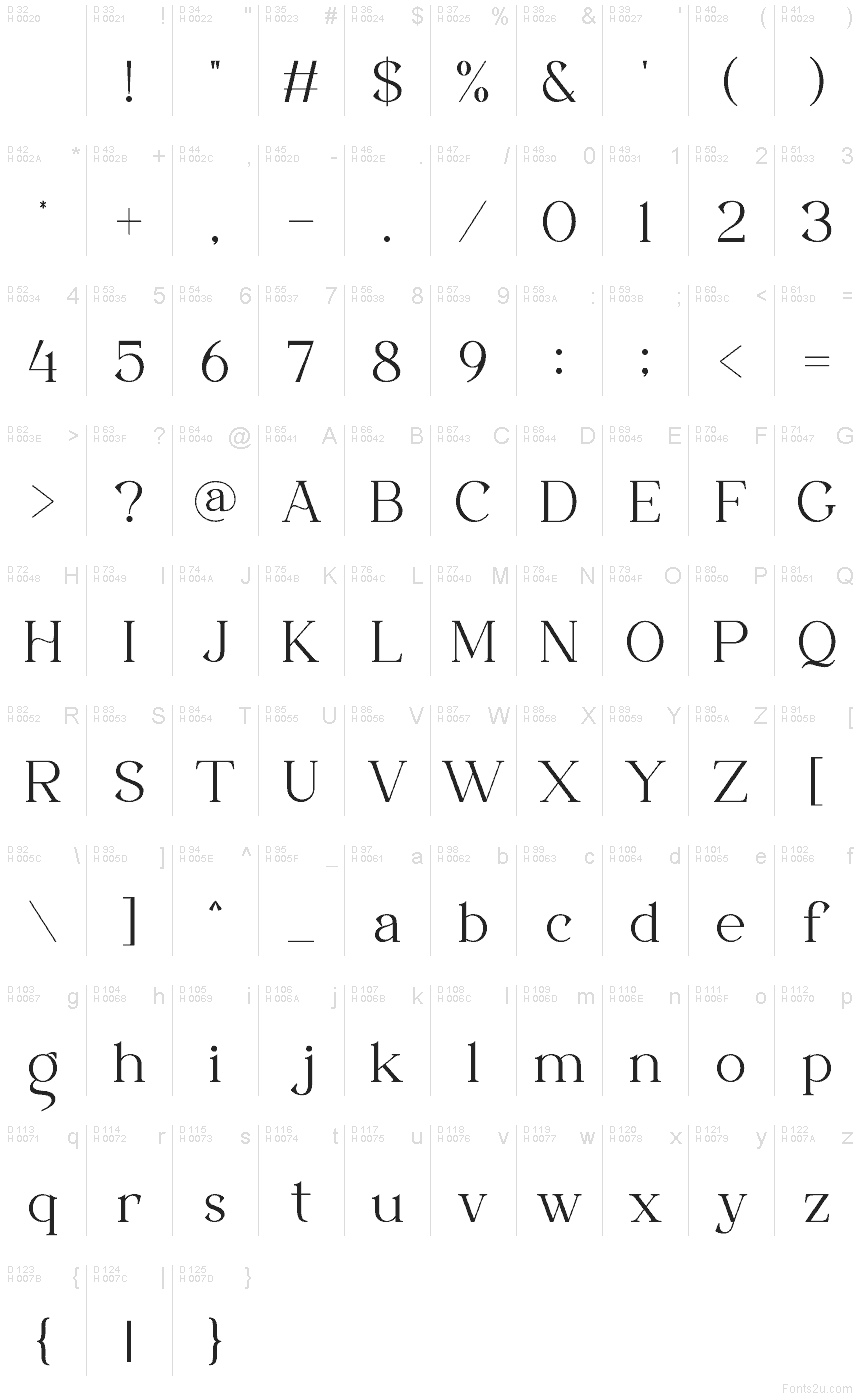
Treka
Treka font by ErmediaStudio is a free high-contrast serif. Its blade-sharp serifs, slim hairlines, and statuesque curves bring a couture polish that reads as modern luxury rather than dusty tradition. The rhythm feels crisp and deliberate, with airy counters that let headlines breathe while still striking like ink on glossy paper.
Using Treka, visual identities step into the spotlight—think fashion branding, magazine covers, beauty packaging, event posters, upscale menus, and editorial pull quotes. This free font shines at large sizes, where its contrast looks clean and intentional; add a touch of tracking for a cool, confident tone. Pair Treka with a quiet grotesk sans for body text to let the headlines gleam.